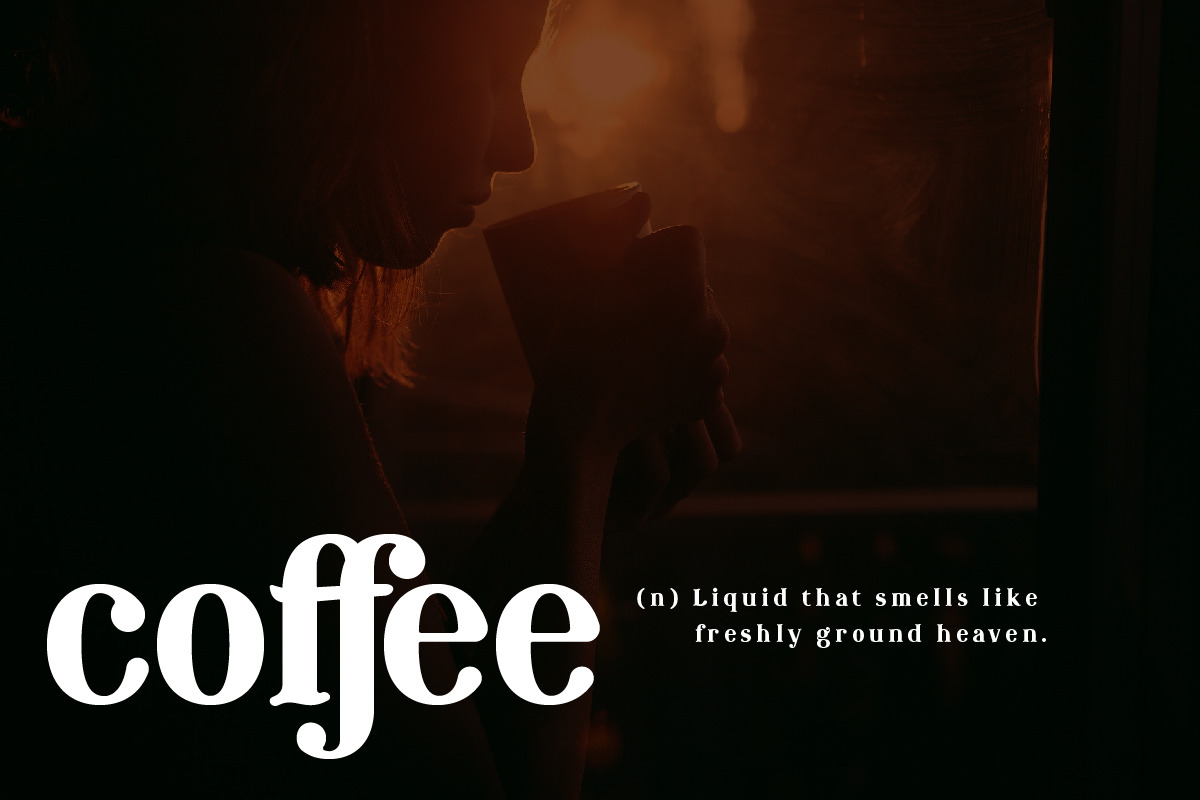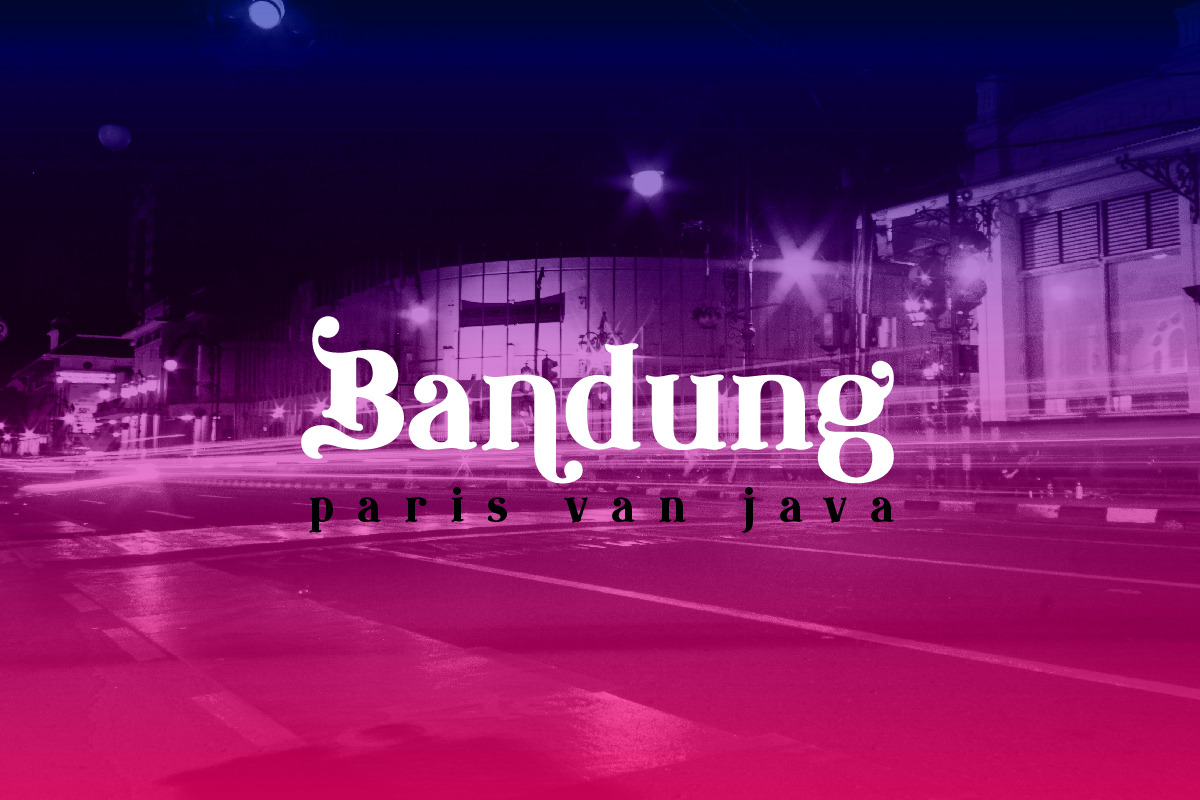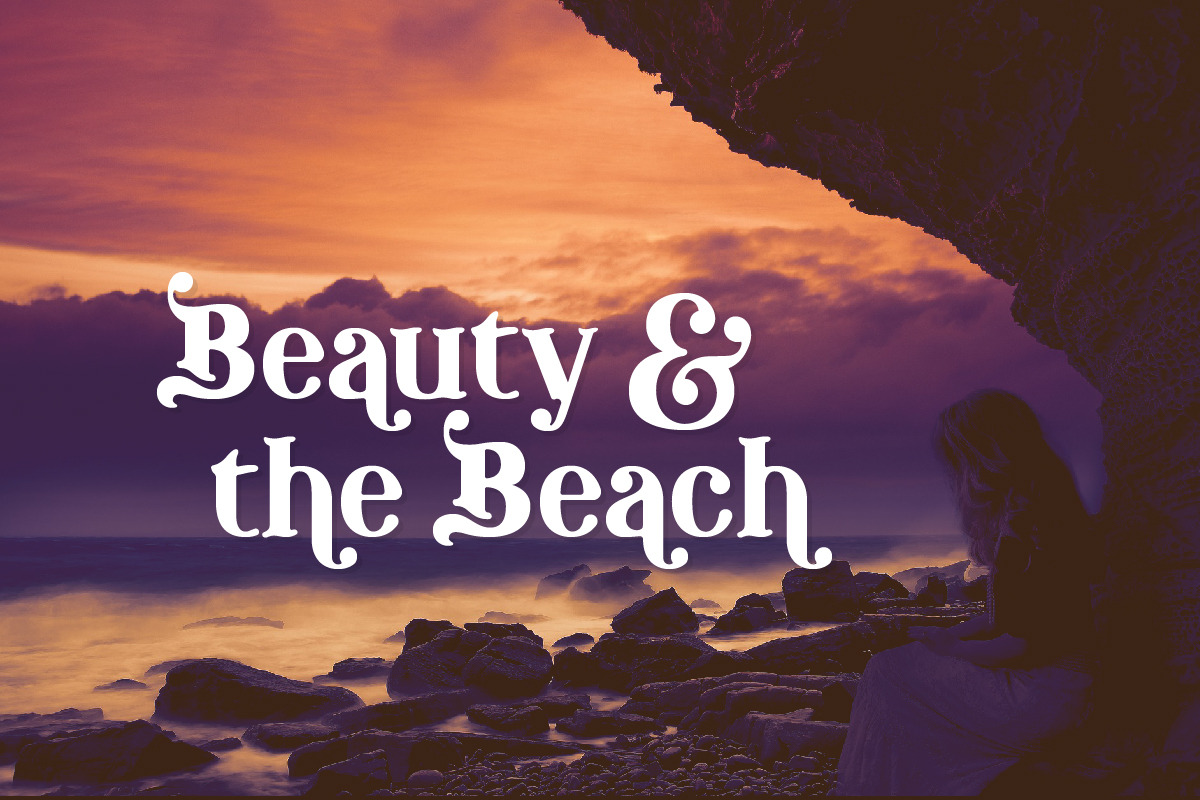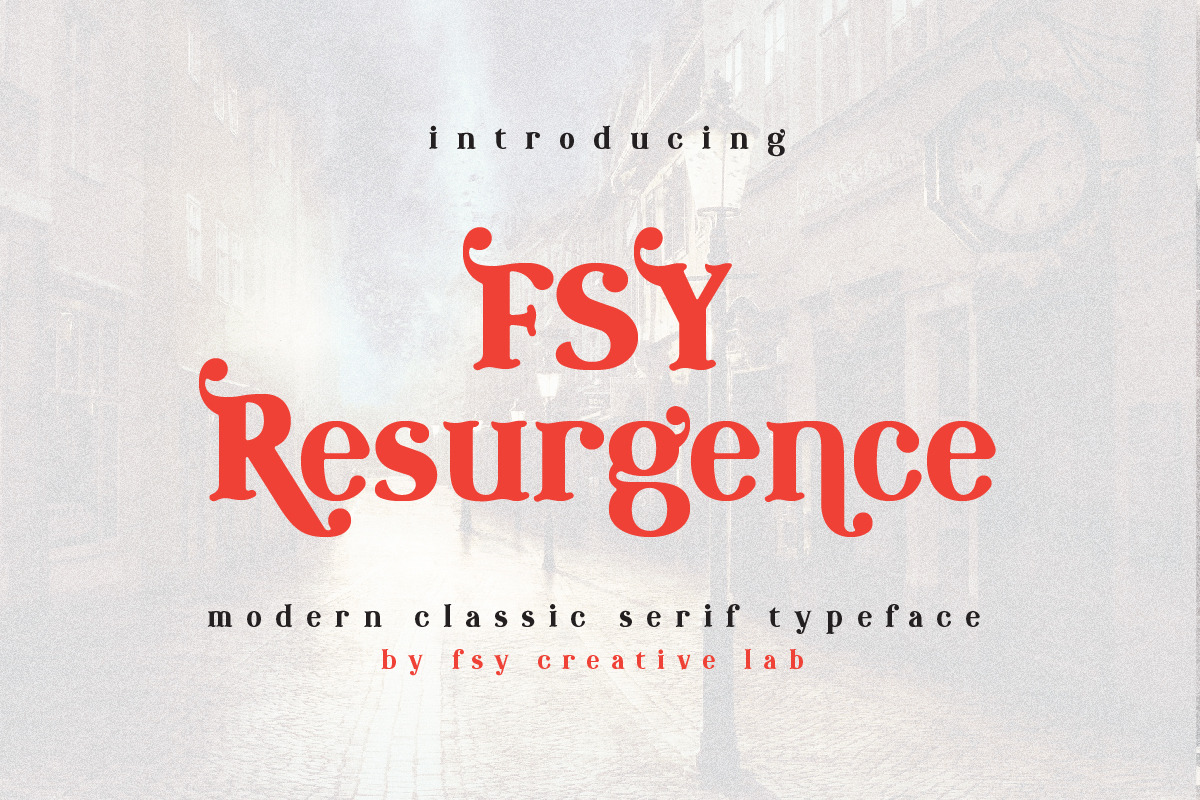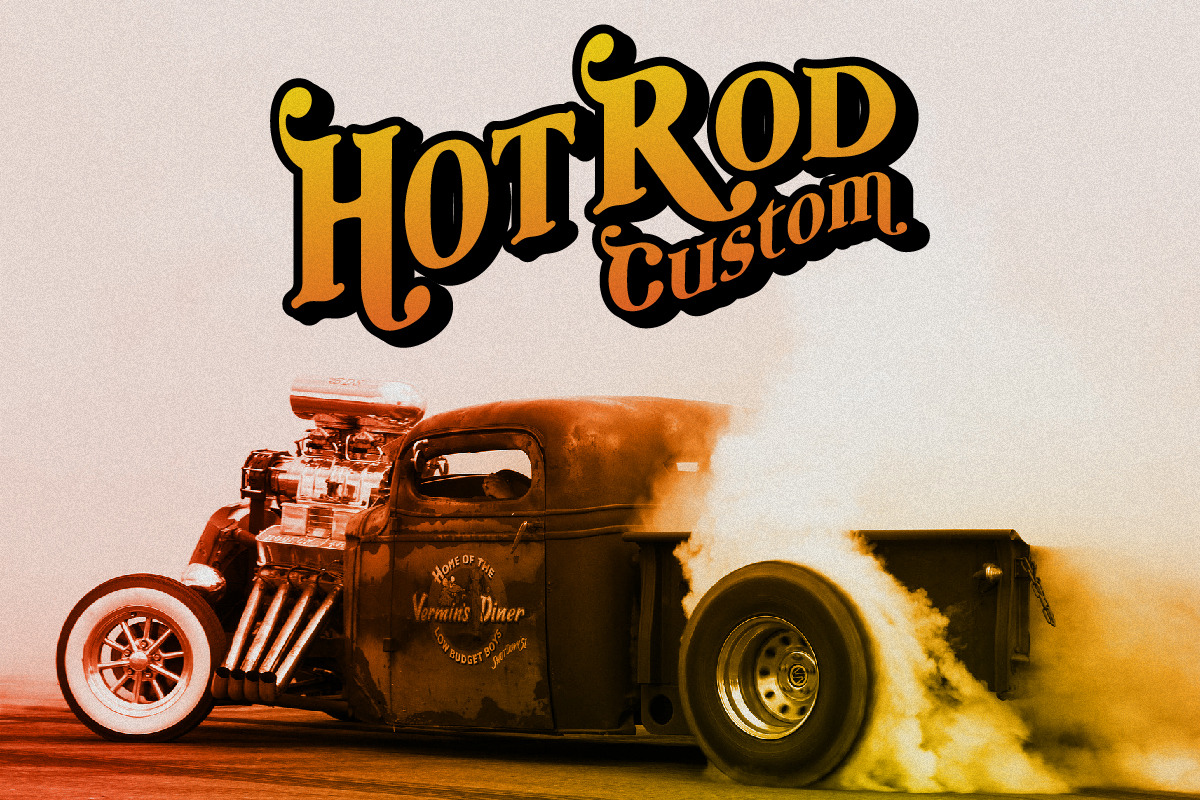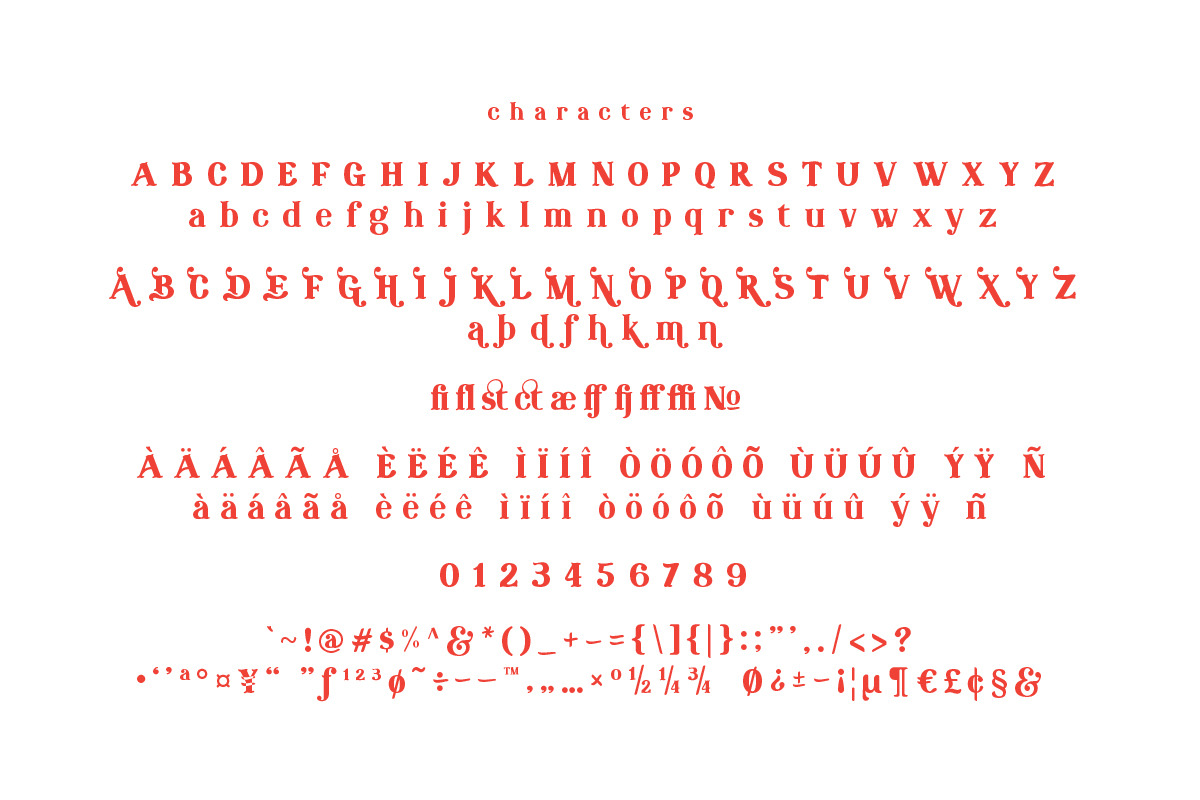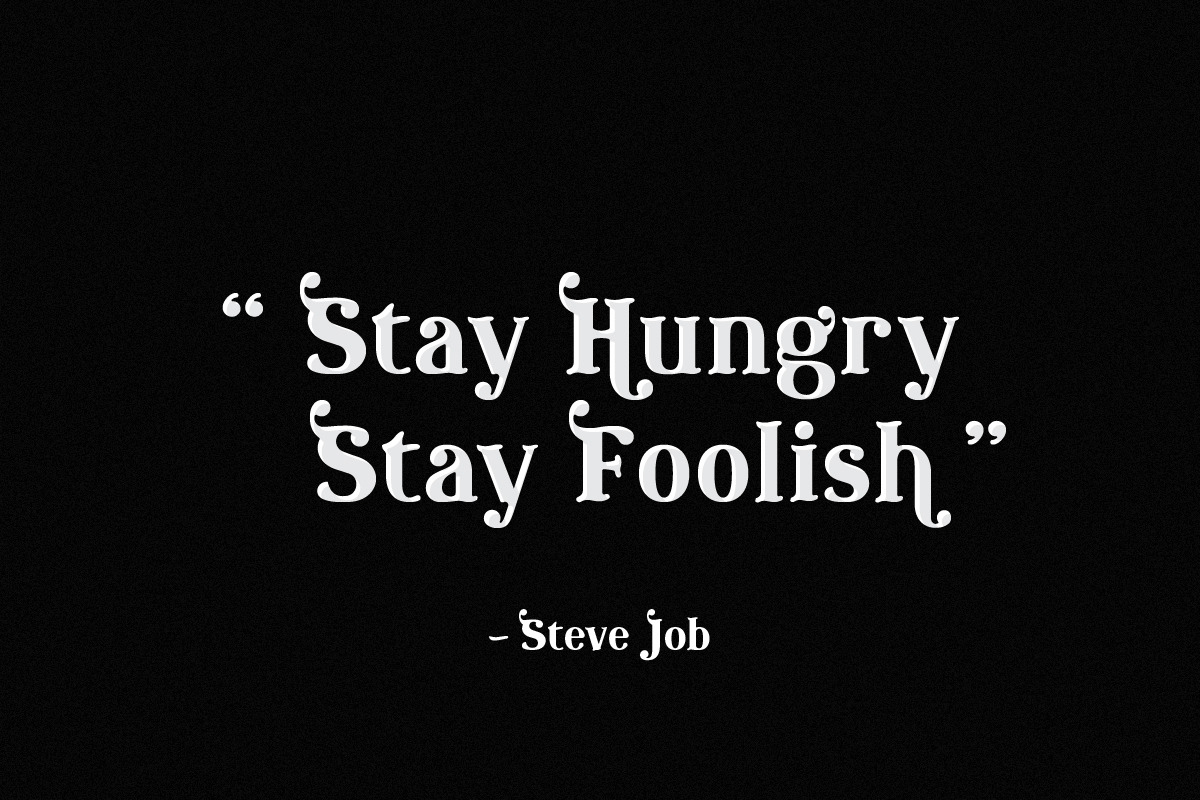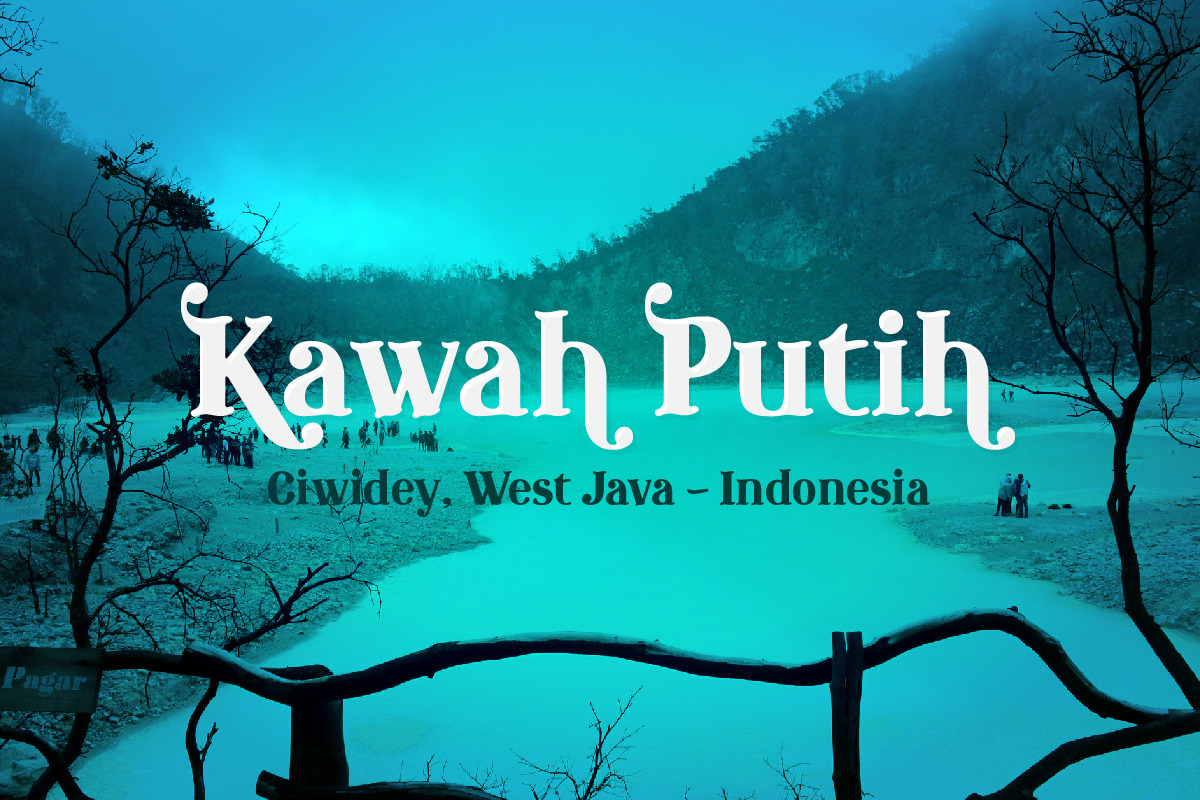
FSY Resurgence | Modern Classic Font
FSY Resurgence is a modern classic typeface that applicable to any media and also you can make a logo with this font